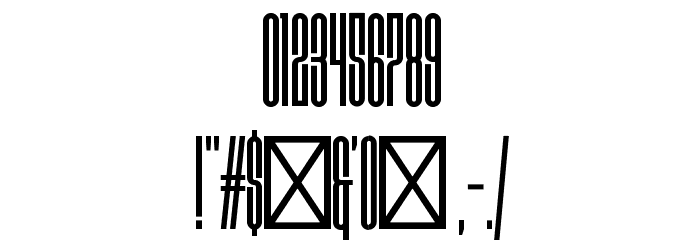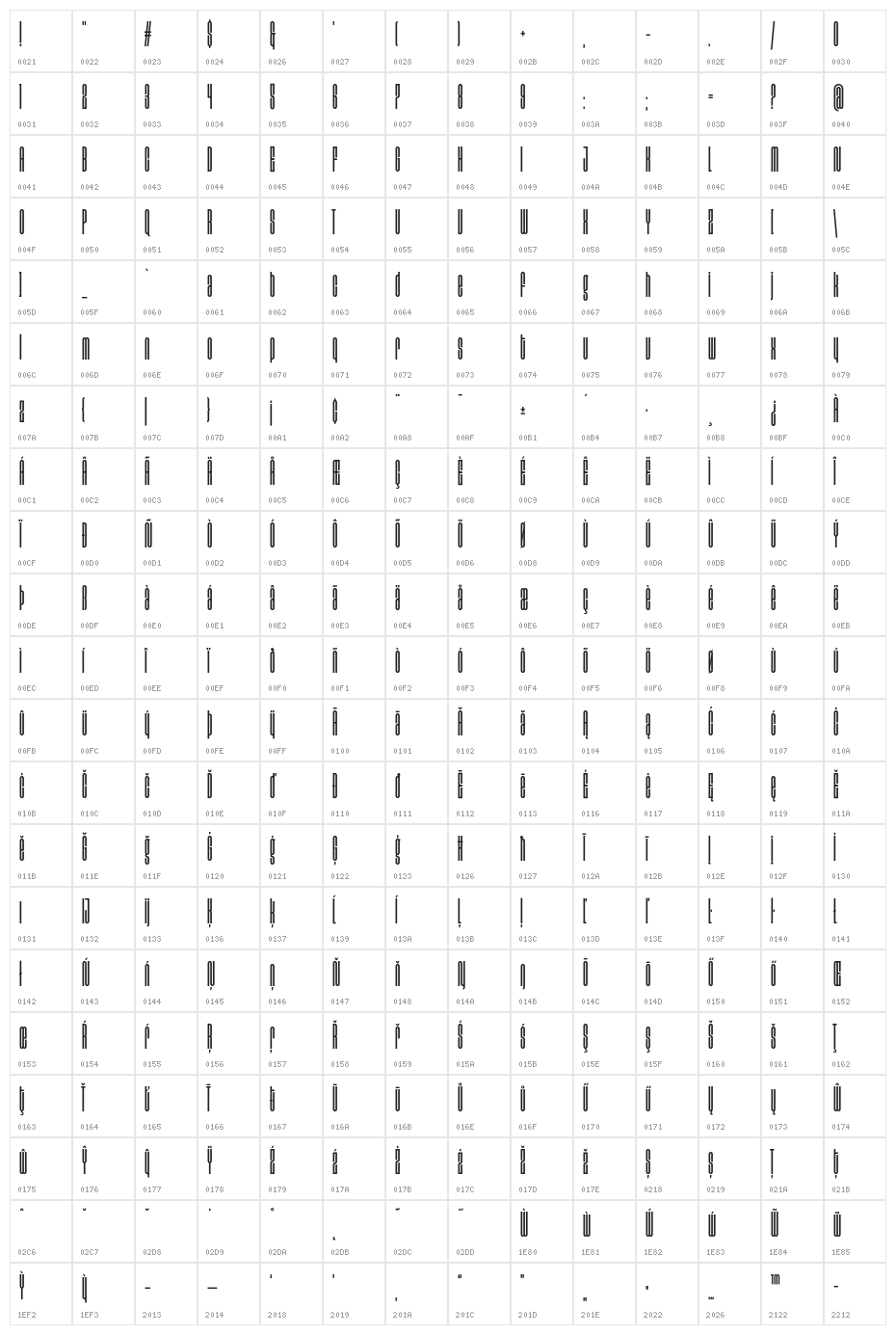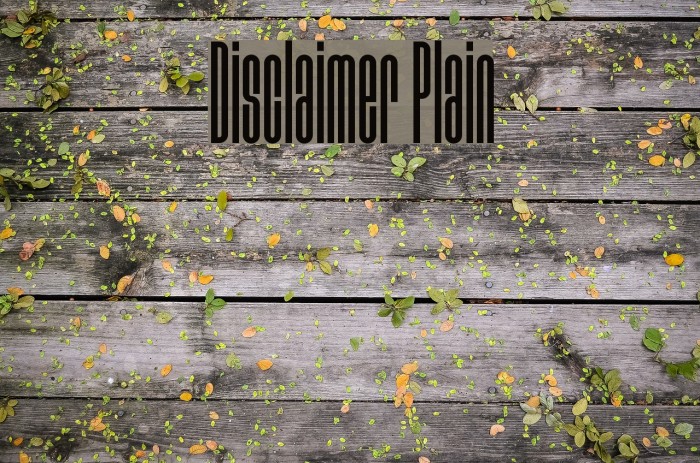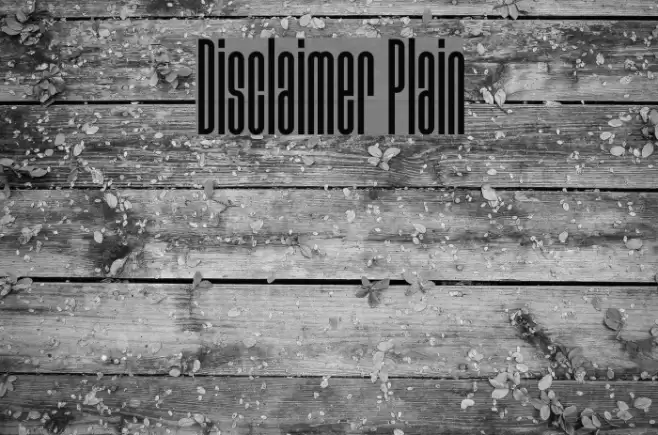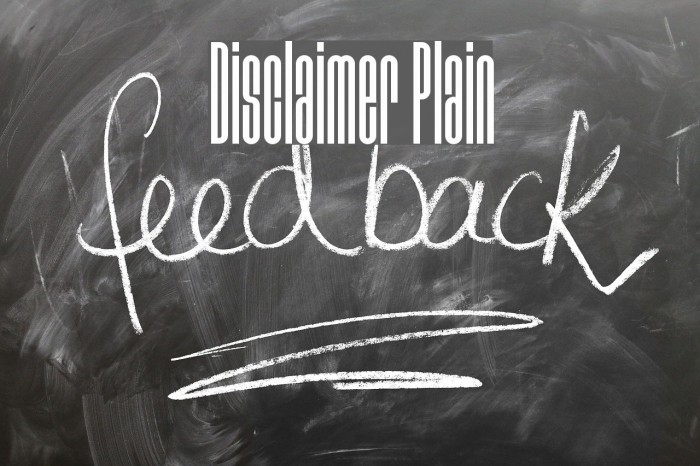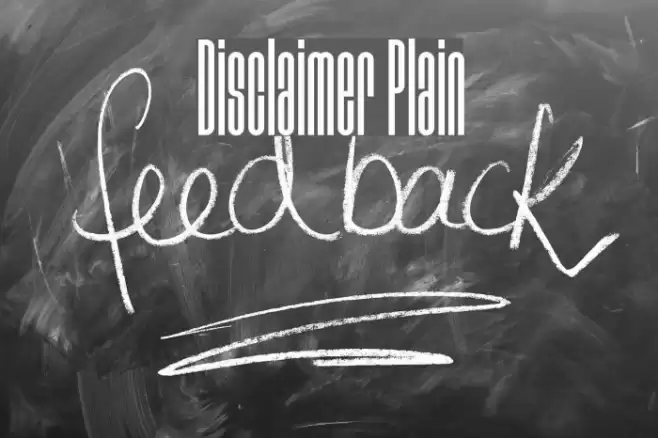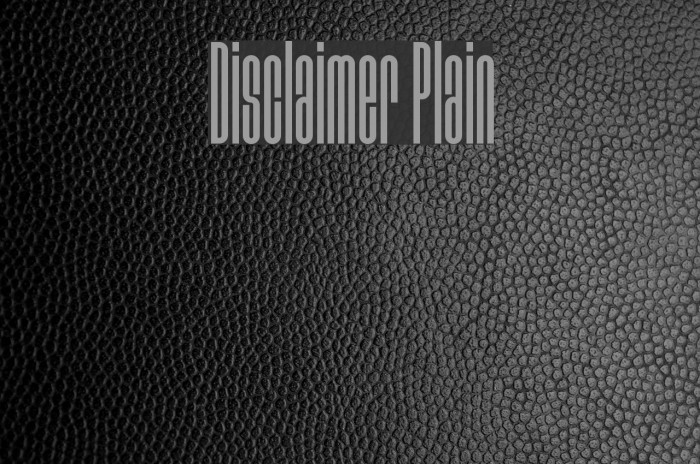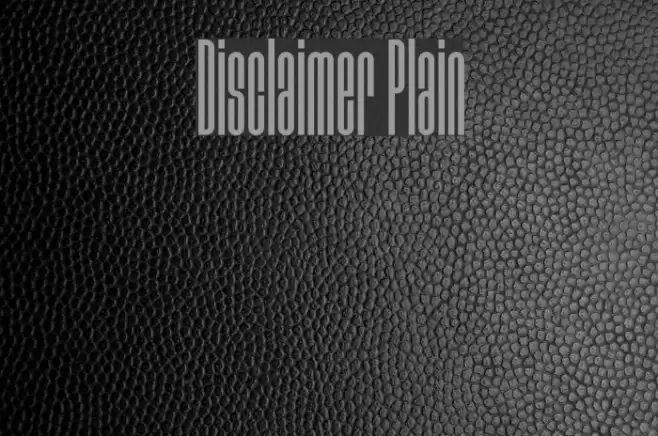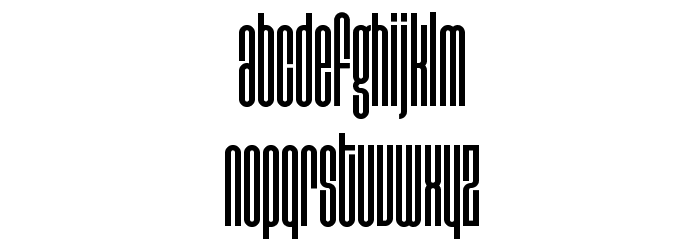
Disclaimer Plain Font
Disclaimer Plain Description
This font features a strikingly tall and narrow design, characterized by its condensed letterforms and vertical emphasis. The uppercase and lowercase letters maintain a consistent height, creating a uniform appearance. The strokes are uniformly thick, contributing to a bold and impactful look. This font's geometric structure and clean lines give it a modern and futuristic feel. The numerals and special characters are designed to match the overall aesthetic, ensuring cohesion across all glyphs. Its unique style makes it stand out, ideal for projects that require a distinctive and eye-catching typeface.